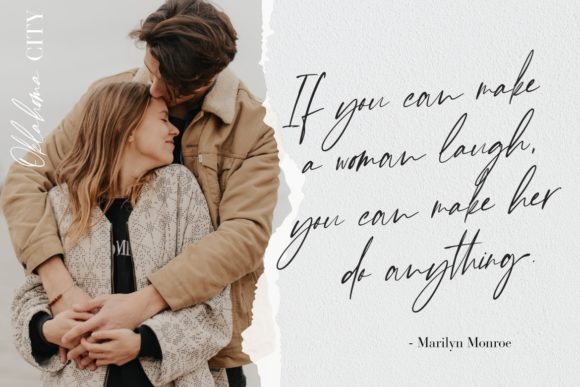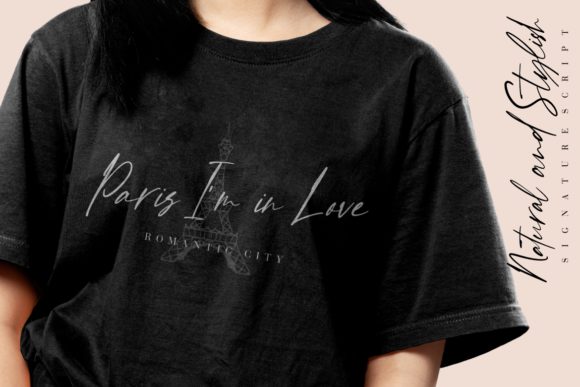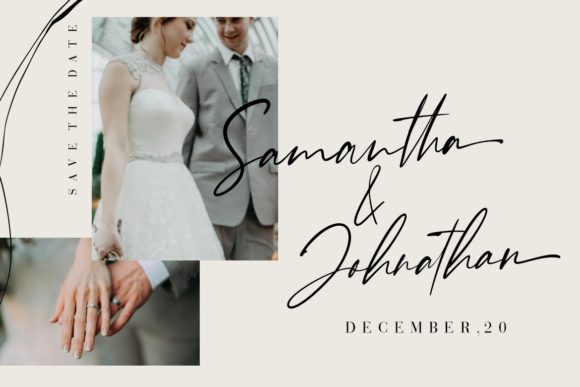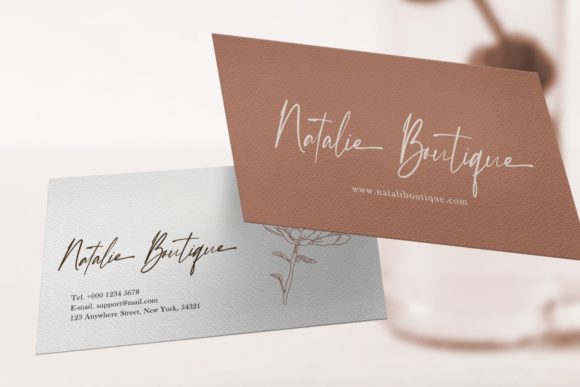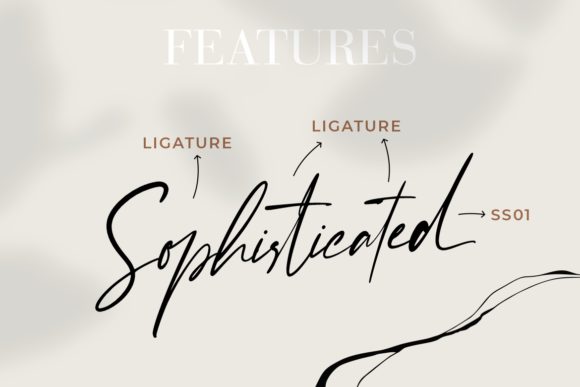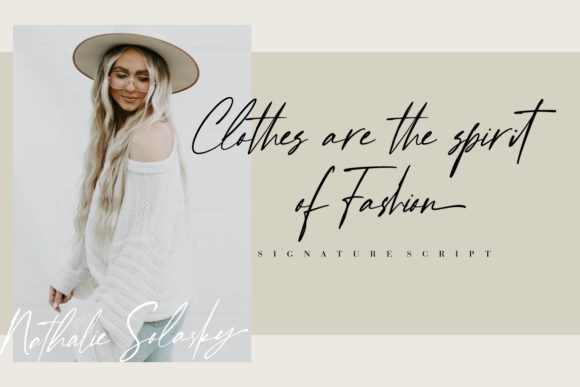
Introducing Enternity Font: The Epitome of Luxury Romantic Calligraphy
In the realm of typography, few fonts manage to convey the essence of luxury and romance as effortlessly as Enternity Font. This exquisite calligraphy font is a masterpiece designed to elevate your designs to new heights of elegance and sophistication. With its clean, thin, and smooth vibe, Enternity is poised to become the go-to choice for designers and crafters seeking to infuse their projects with a touch of refinement and glamour.
What Sets Enternity Apart?
Enternity Font is not just another calligraphy font; it’s a carefully crafted typeface that embodies the spirit of luxury and romance. Here are a few key features that set it apart:
- Luxury Romantic Aesthetic: Enternity’s design is characterized by its clean lines, delicate strokes, and an overall sense of fluidity. This font exudes a romantic charm that is perfect for projects that require a touch of sophistication and elegance.
- Versatility: Whether you’re working on a wedding invitation, a branding project, or a packaging design, Enternity’s versatility ensures that it will complement your work beautifully. Its thin and smooth vibe makes it an excellent choice for a wide range of applications.
Applications of Enternity Font
The applications of Enternity Font are vast and varied. Here are a few examples of how this stunning calligraphy font can be used:
- Wedding and Event Stationery: Enternity is perfect for creating bespoke wedding invitations, save-the-date cards, and other event stationery. Its romantic charm and luxurious feel make it an ideal choice for couples looking to make a lasting impression.
- Branding and Packaging: For businesses seeking to establish a high-end brand identity, Enternity can be used to create elegant logos, product labels, and packaging designs that convey a sense of luxury and sophistication.
- Digital and Print Media: Enternity’s versatility extends to digital and print media, making it suitable for use in magazines, blogs, and social media graphics. Its clean and smooth design ensures that it will enhance your content without overpowering it.
Tips for Using Enternity Font Effectively
To get the most out of Enternity Font, here are a few tips to keep in mind:
- Pair it with Complementary Fonts: Enternity’s unique character makes it an excellent choice for pairing with other fonts. Experiment with different combinations to find the perfect balance for your design.
- Experiment with Swashes and Glyphs: Take full advantage of Enternity’s PUA encoding by exploring its range of swashes and glyphs. These elements can add an extra layer of creativity and personality to your designs.
- Adjust Font Sizes and Colors: Don’t be afraid to experiment with different font sizes and colors to achieve the desired effect. Enternity’s clean design ensures that it will look great in a variety of contexts.